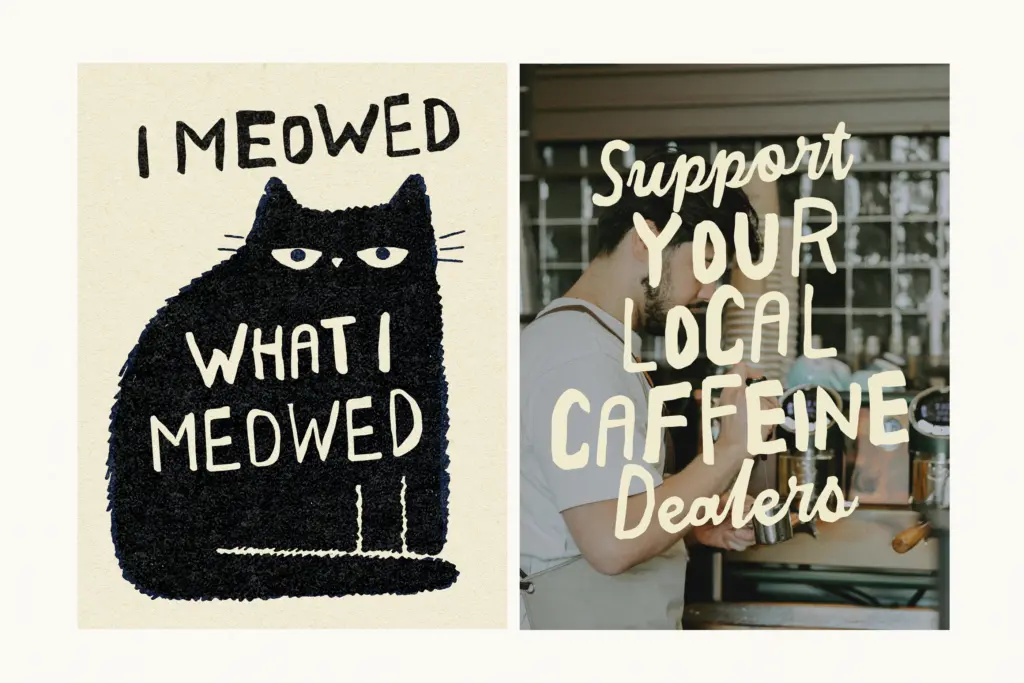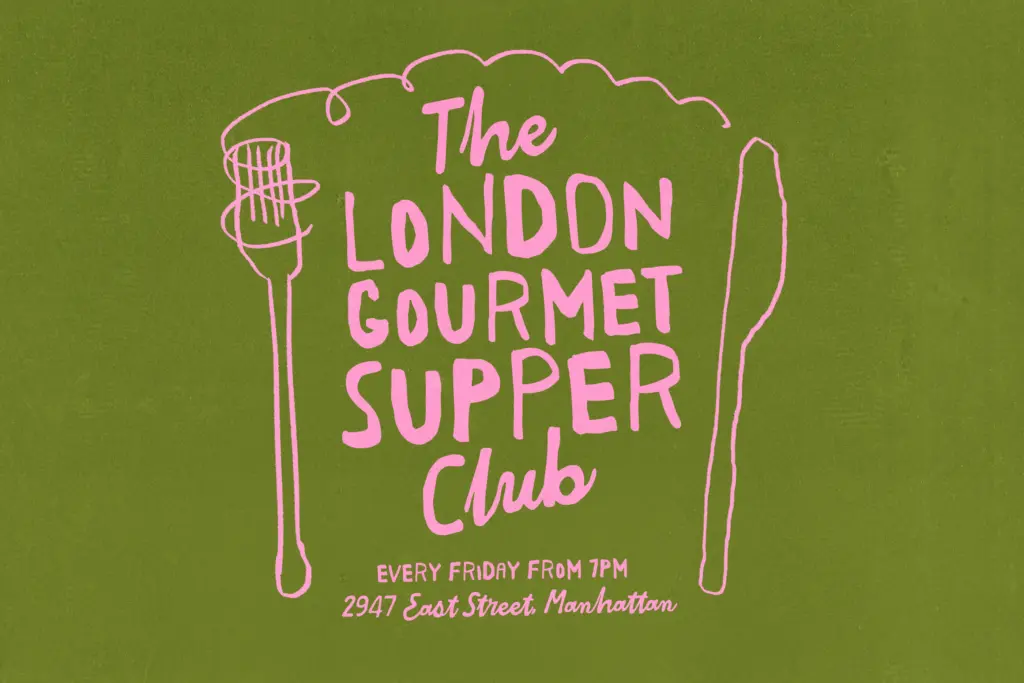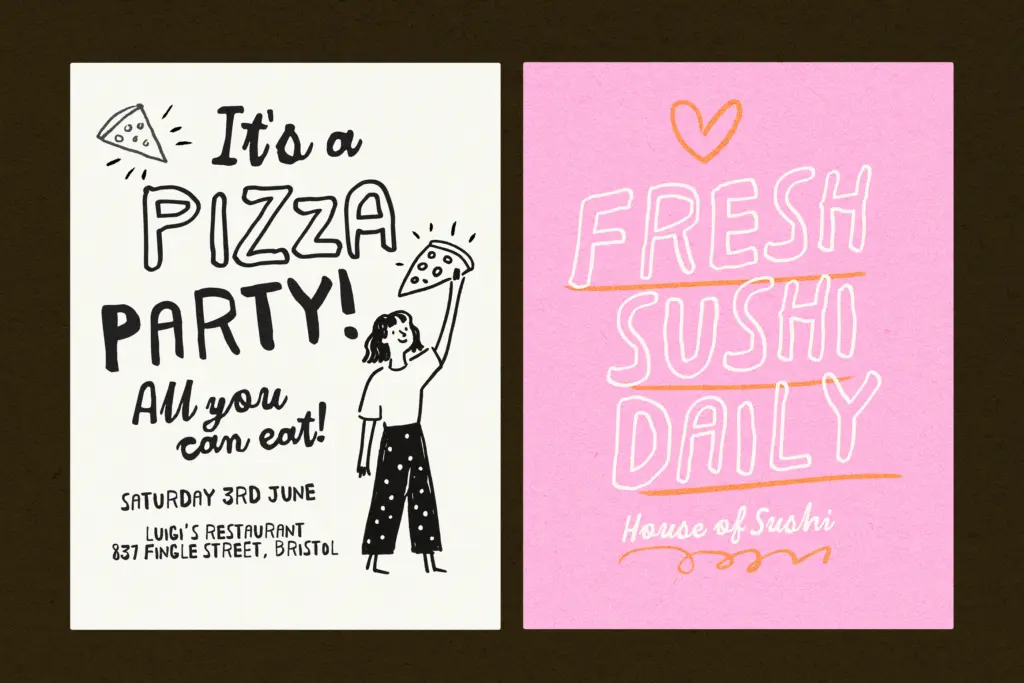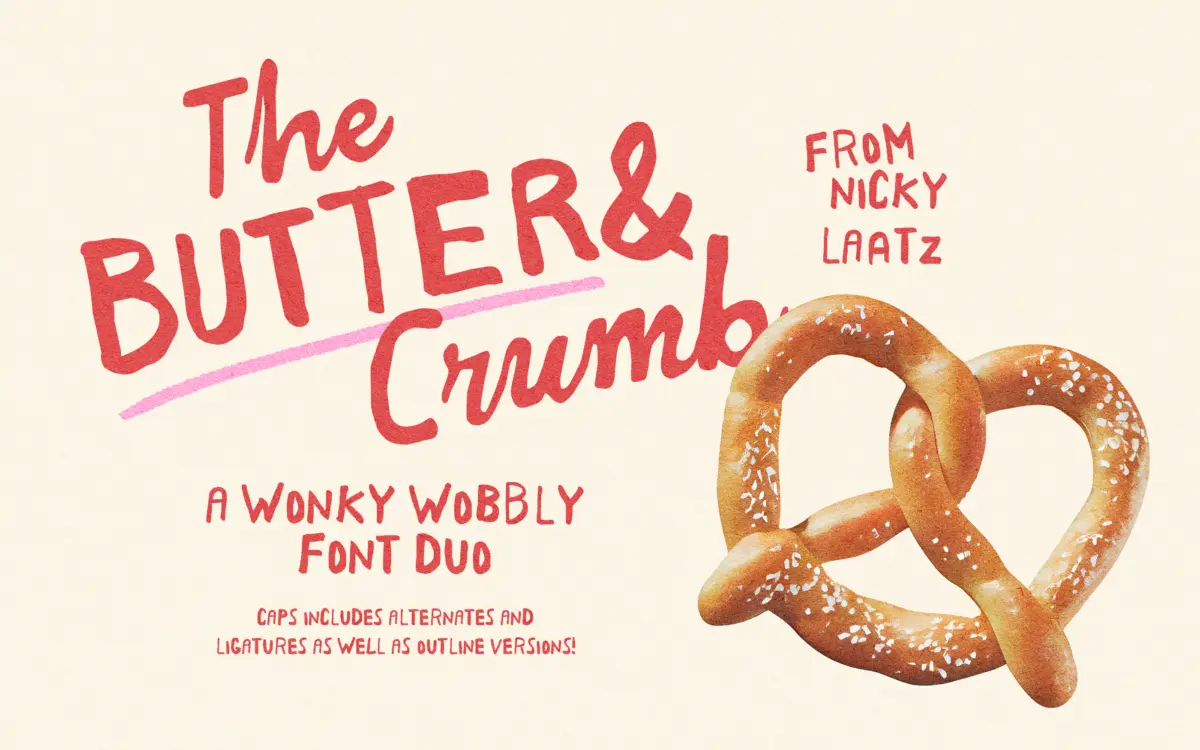
Butter And Crumb is built on deliberate imperfection. The duo pairs a wobbly, hand-drawn caps set with a fat, chunky script, and both halves lean hard into irregular baselines, uneven stroke weight and slightly lopsided letter construction. Nothing here is trying to look controlled. Curves bulge unevenly, terminals stop short or flare out, and the overall texture reads more like a marker or a loaded brush than a pen.
The caps do the heavy lifting for personality: each letter looks like it was drawn separately rather than built from a consistent skeleton, which gives headlines a scrappy, almost hand-cut quality. The script sits closer to a traditional brush script in structure but is drawn thick and blunt rather than tapered, so it reads heavier and squatter than most script companions. Together they feel like they came from the same hand on the same coffee-fuelled afternoon — the pairing is convincing, even if neither face is quiet on its own.
The package includes alternates and ligatures, which matter more here than in a lot of script fonts because the wobble means repeated letters can otherwise look identical and mechanically repeated. Swapping in alternates on doubled letters or common combinations keeps a line of text from reading as a stamped pattern. Outline versions of both styles are also included, giving a lighter, layered option for compositions that need a second colour or a stacked shadow effect without buying a separate weight.
This duo is built for short bursts of type, not paragraphs. Birthday cards, party invitations, packaging labels for something baked or handmade, social posts, and logotypes for brands that want to signal warmth and informality all sit well within its range. The chunky script works nicely as a signature-style lockup over the wobbly caps used as a supporting line — that’s clearly the intended pairing and it earns its keep.
Where it struggles is anywhere formality or restraint is needed. The imperfection is the whole point, so this isn’t a font for financial branding, corporate stationery, or anything that needs to look considered rather than charming. At small sizes the wobble in the caps can blur into noise, so it wants generous point sizes and short words rather than dense text blocks. Used within those limits — headlines, single words, short phrases — it holds its character without becoming illegible.
- The wobbly caps and chunky script feel drawn by the same hand and pair naturally
- Alternates and ligatures break up repetition that would otherwise look stamped
- Outline versions add a layering option without needing a second product
- The deliberate wobble loses clarity at small sizes and in dense text
- PUA encoding means the alternates require extra setup to access
Butter And Crumb commits fully to a scrappy, hand-drawn look and the two styles pair convincingly. It's a strong pick for playful, informal branding but not built for small sizes or long text.